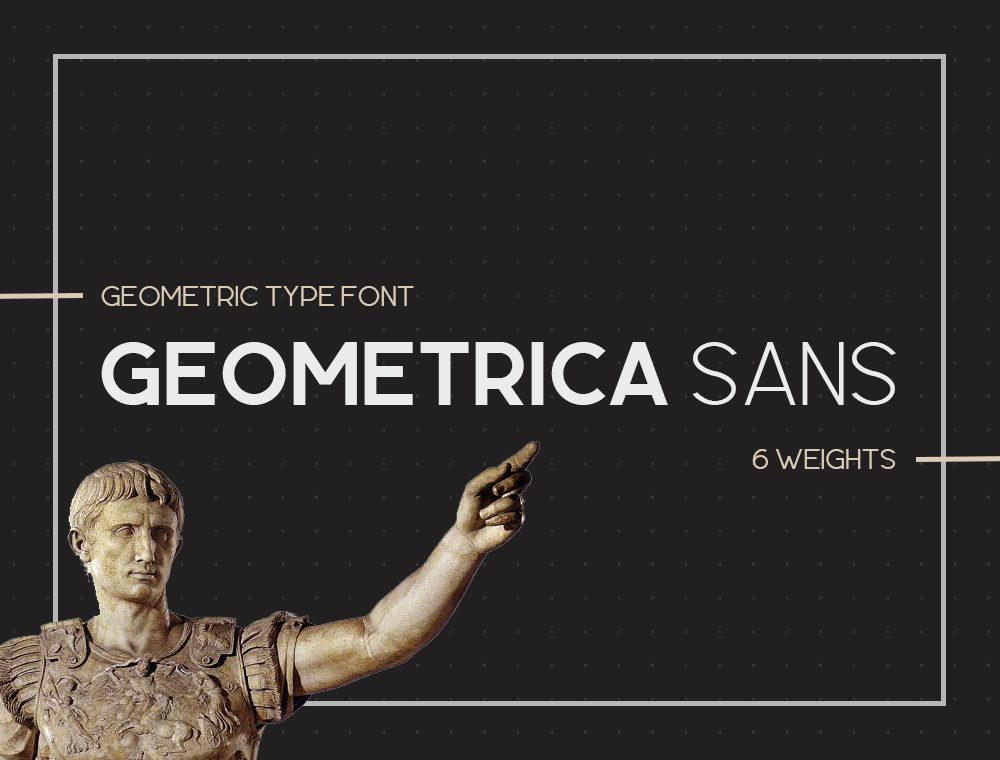
Geometrica Sans Typeface
Geometrica Sans is geometric type family designed for everything sharp and geometric. Each letter is designed using the most basic shapes in geometry.